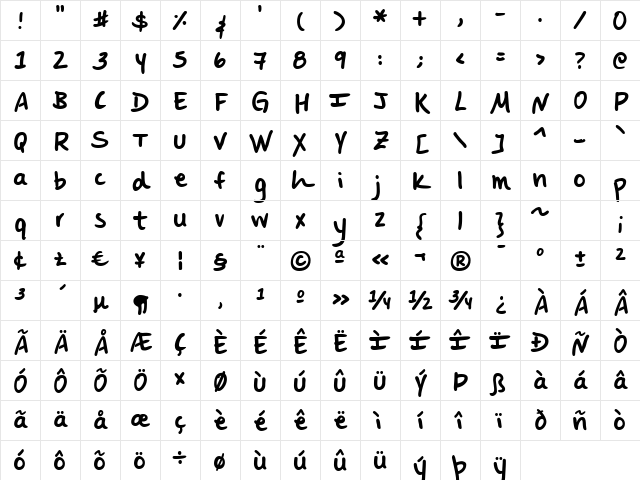
Martie Three is a composed and adaptable typeface that performs quietly and consistently across a wide range of design contexts. Its bold stroke weight gives it real presence on the page.